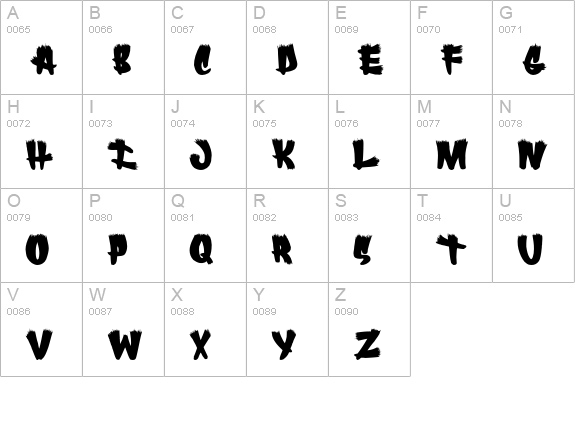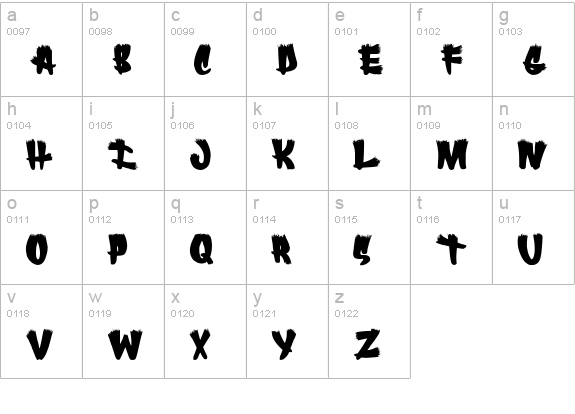
FLAREUPS Font Details
FLAREUPS font is a stunning display typeface that exudes energy and spontaneity. Its sharp edges and dynamic angles give your designs a fiery and modern edge, making a bold statement with each character. The unique combination of straight lines and curves creates a captivating visual rhythm, perfect for eye-catching headlines, posters, and branding projects. This font is not only visually striking but also versatile, allowing you to play with different weights and styles to achieve the desired impact. Whether you're looking to add a touch of excitement to your designs or make a strong visual statement, FLAREUPS font is sure to deliver. And the best part? FLAREUPS font is available for free download at FontsMarket.com, making it accessible to all designers looking to add a touch of fiery flair to their projects. Don't miss out on this opportunity to elevate your designs with this bold and dynamic typeface!